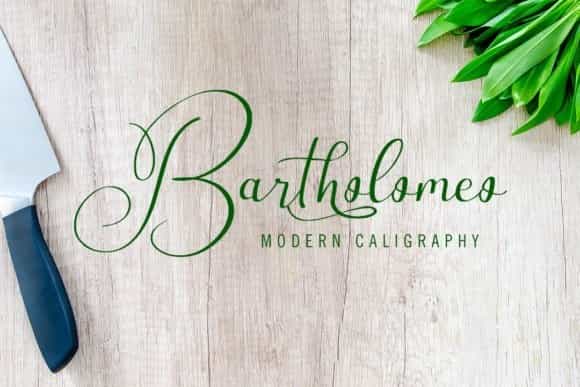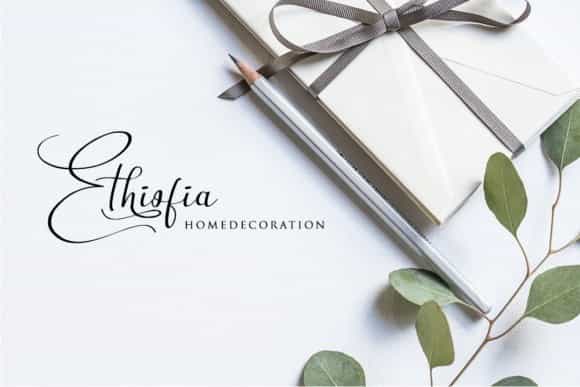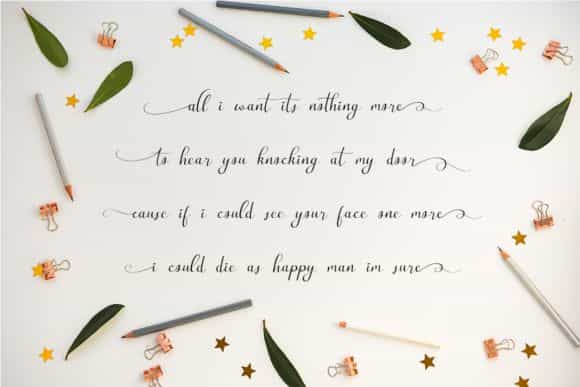
Bartholomeo is a calligraphy font that captures the hand written style; this makes it versatile for use in brand logo designs, wedding invitations, magazine layouts, mugs, business cards, quotes, posters, and many other uses. It is allowed to try it on and feel the comfort of the product before buying it.